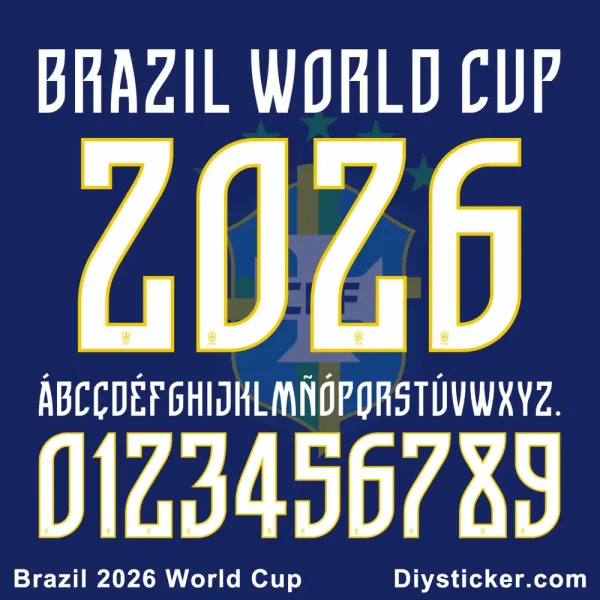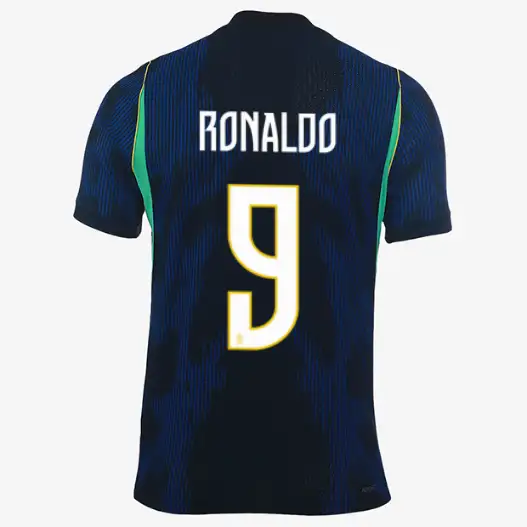
Capture the Samba spirit with the Brazil 2026 World Cup Font. This premium digital pack features the sleek, modern typography designed for the 2026 World Cup cycle. The download includes installable desktop formats (TTF, OTF) and professional-grade scalable vectors (AI, CDR, PDF). Perfect for customizing Brazil jerseys (External Link), fan merchandise, and high-resolution vinyl printing.
The Ultimate Selection: Brazil 2026 World Cup Typography Celebrate the legacy of the five-time world champions with our meticulously crafted Brazil 2026 World Cup Font. This typeface is a high-fidelity recreation of the numbering and lettering used by the Seleção for the 2026 season. Whether you are a professional kit designer or a fan preparing a DIY sticker or jersey project (Internal Link), this font ensures your gear looks tournament-ready.